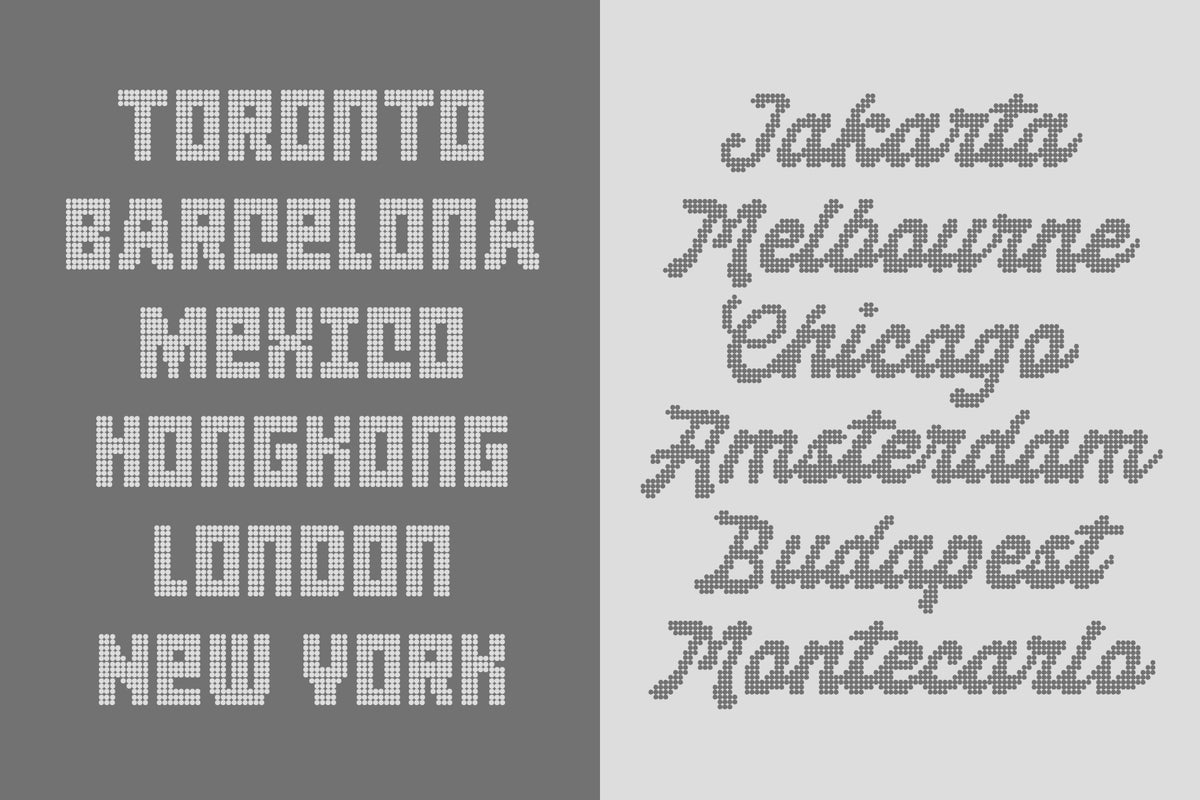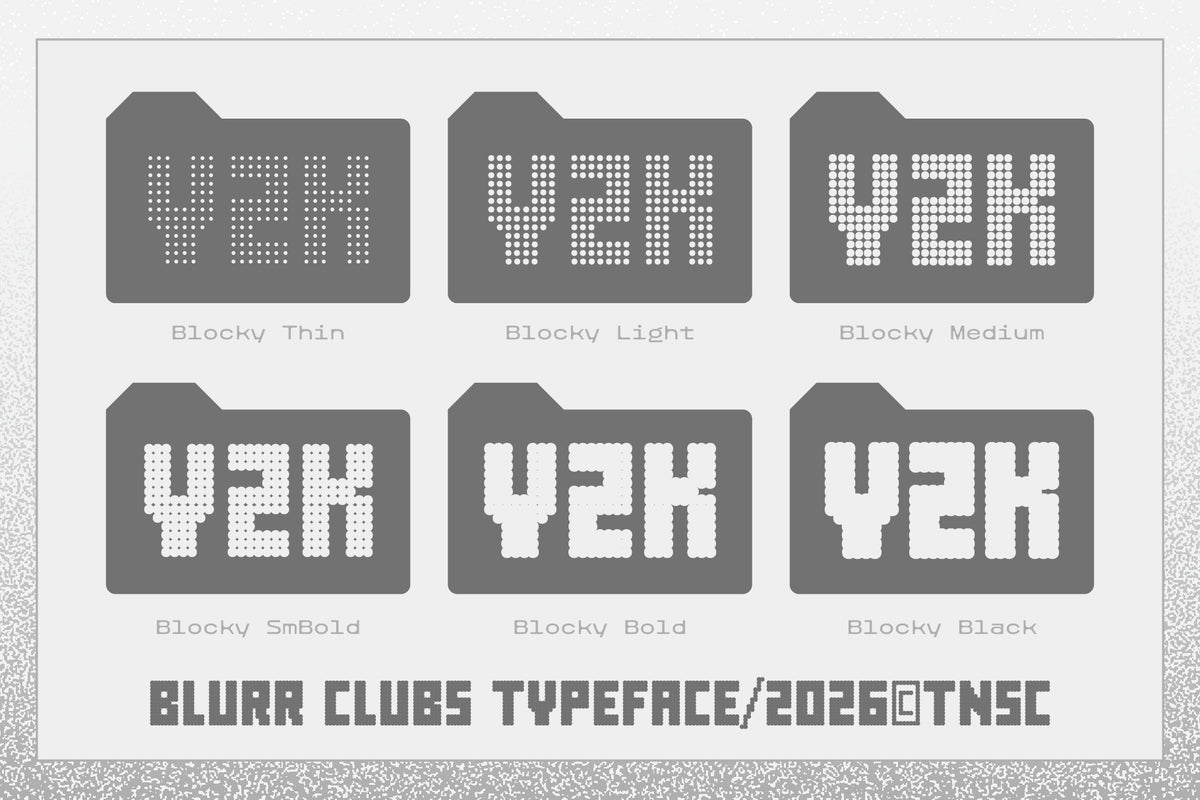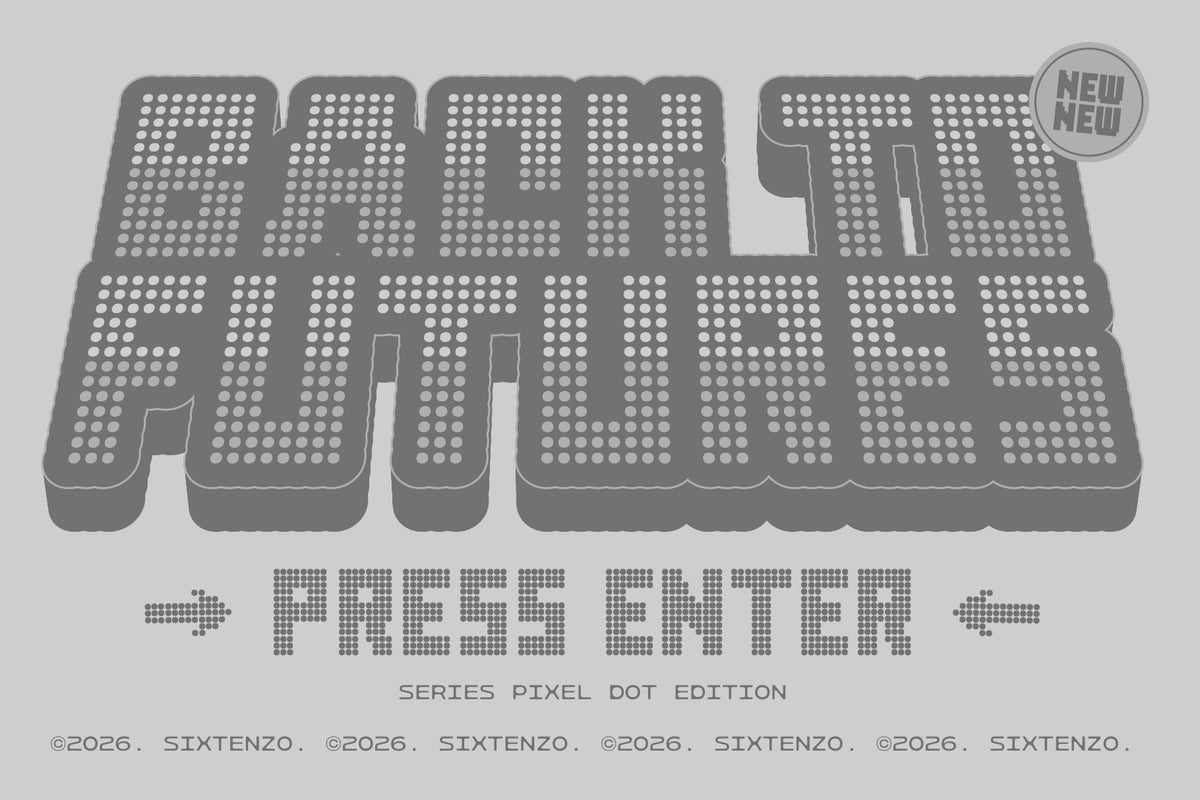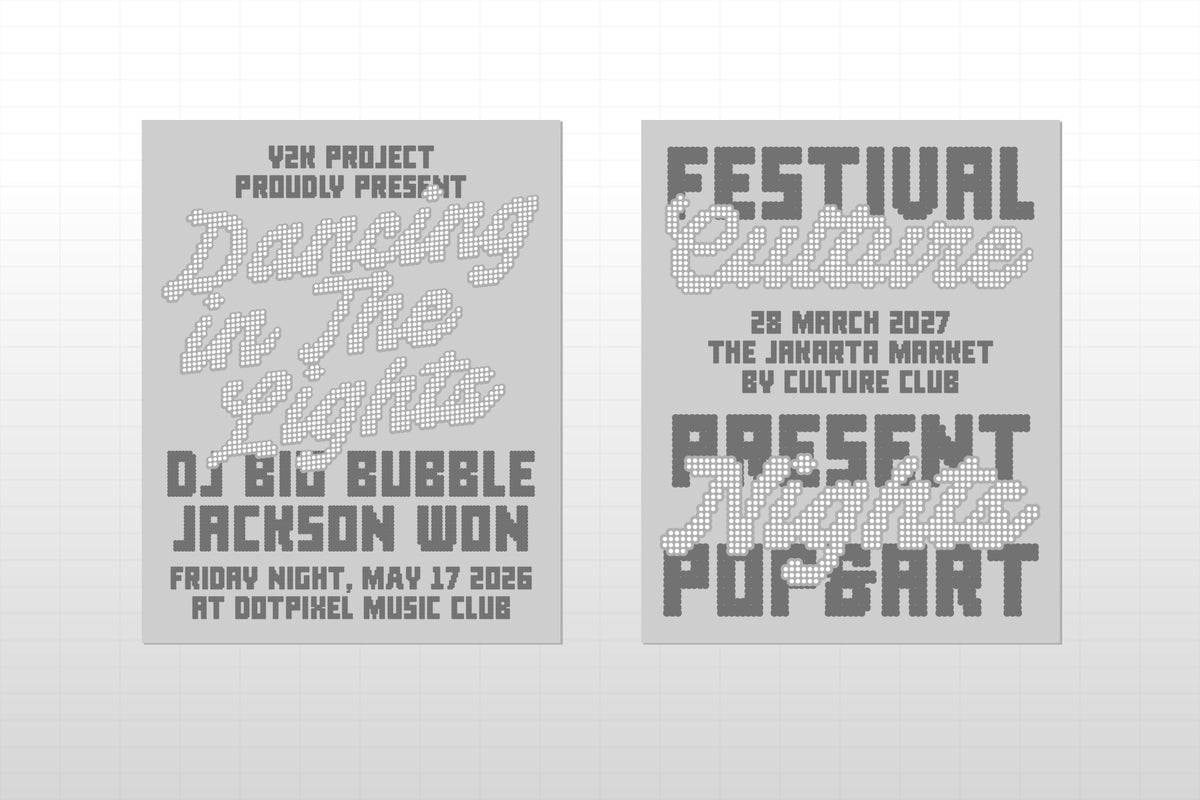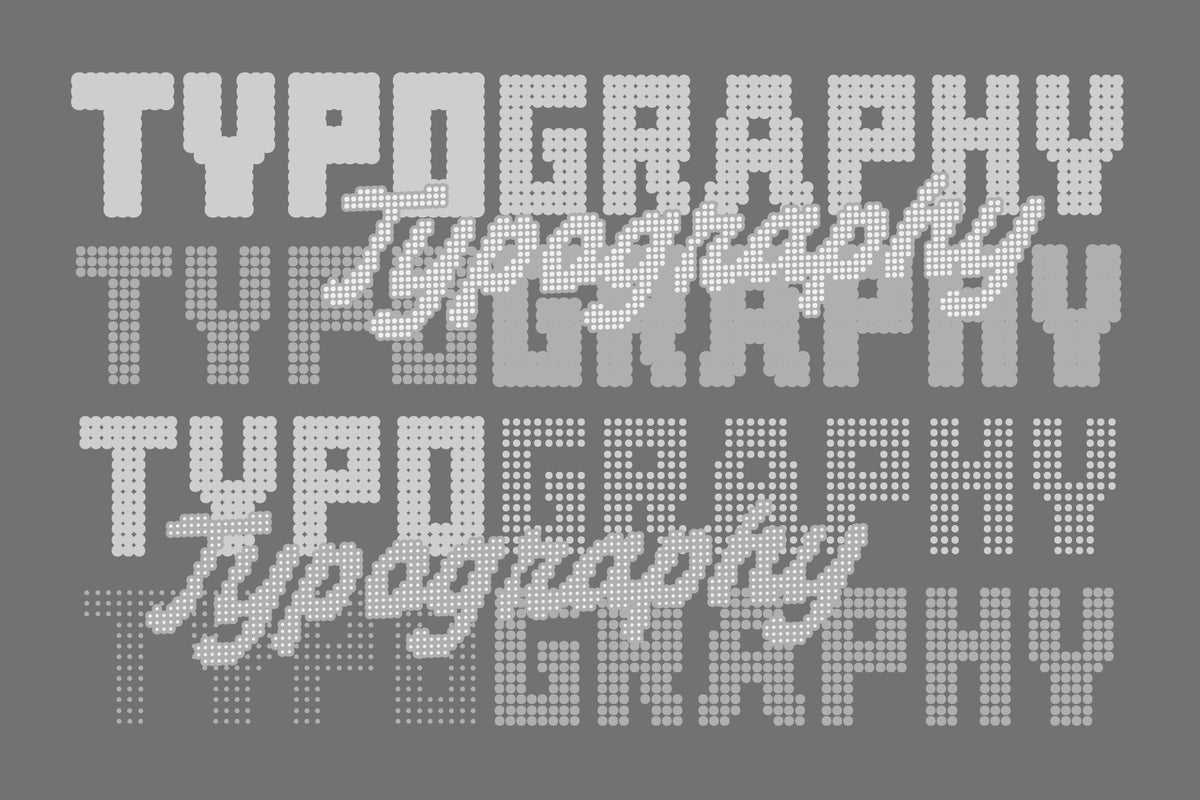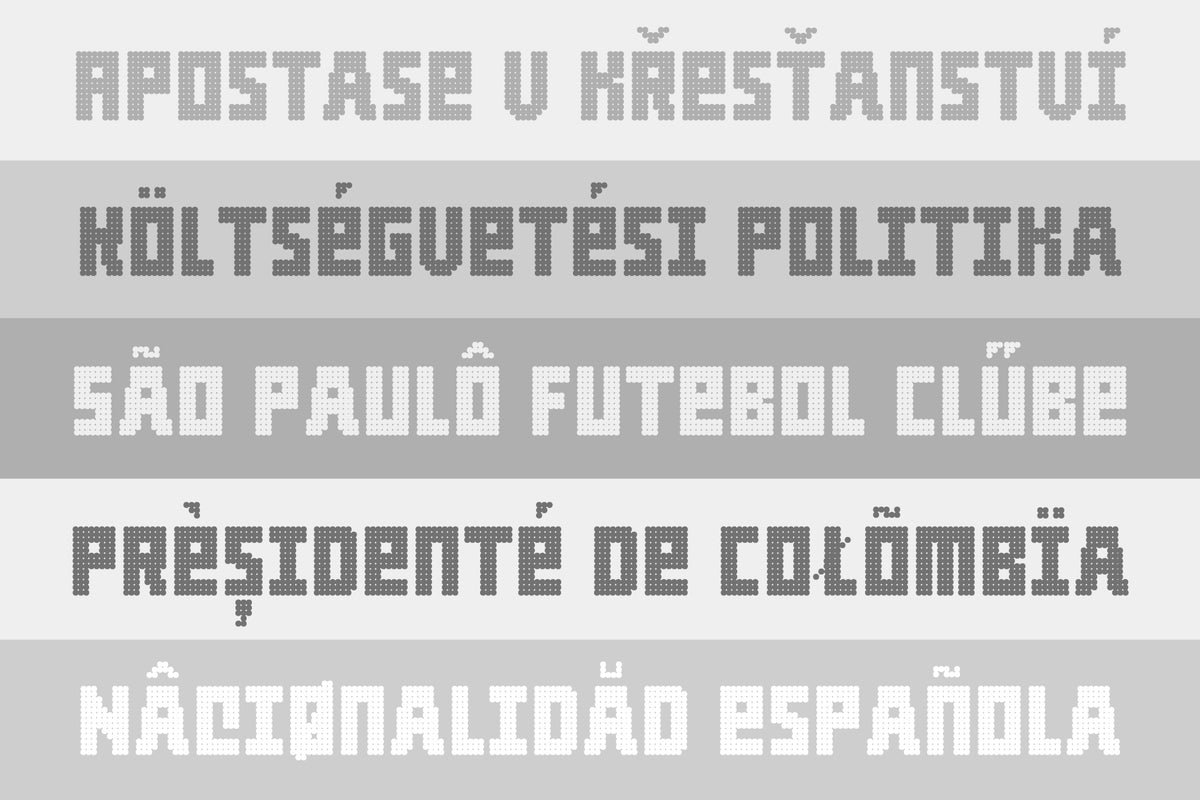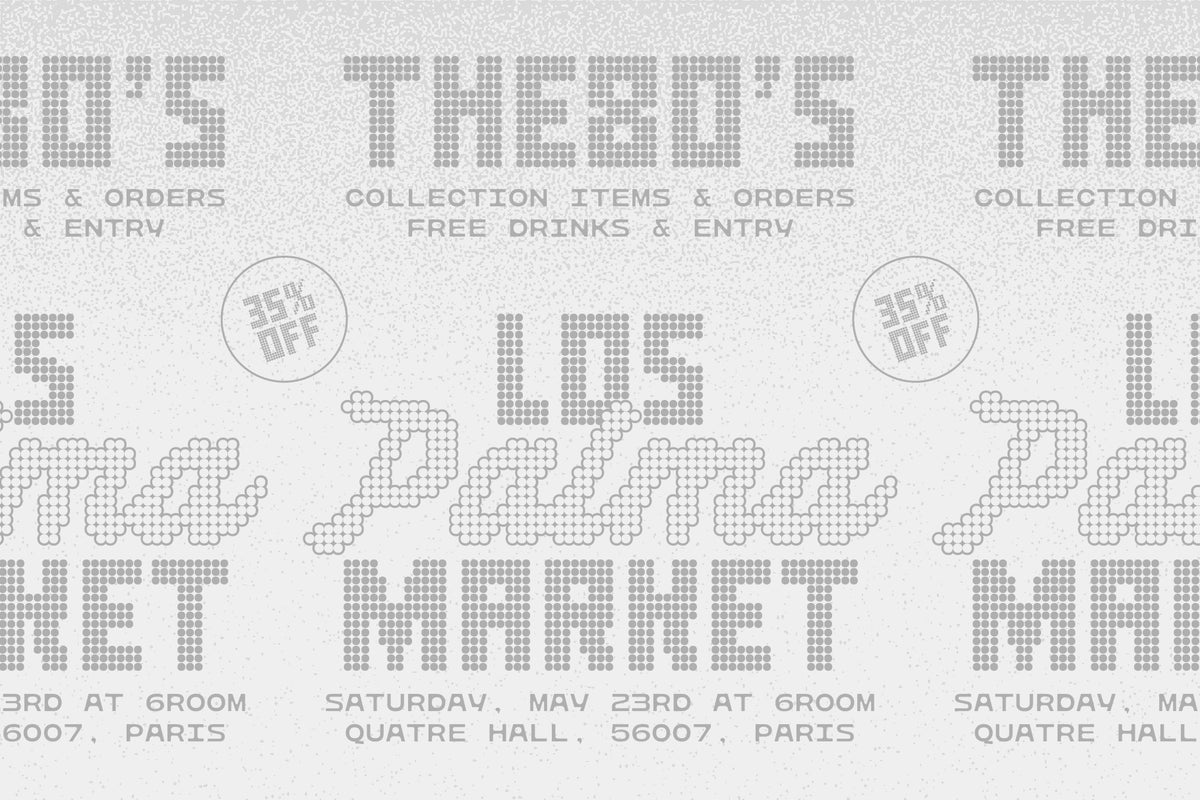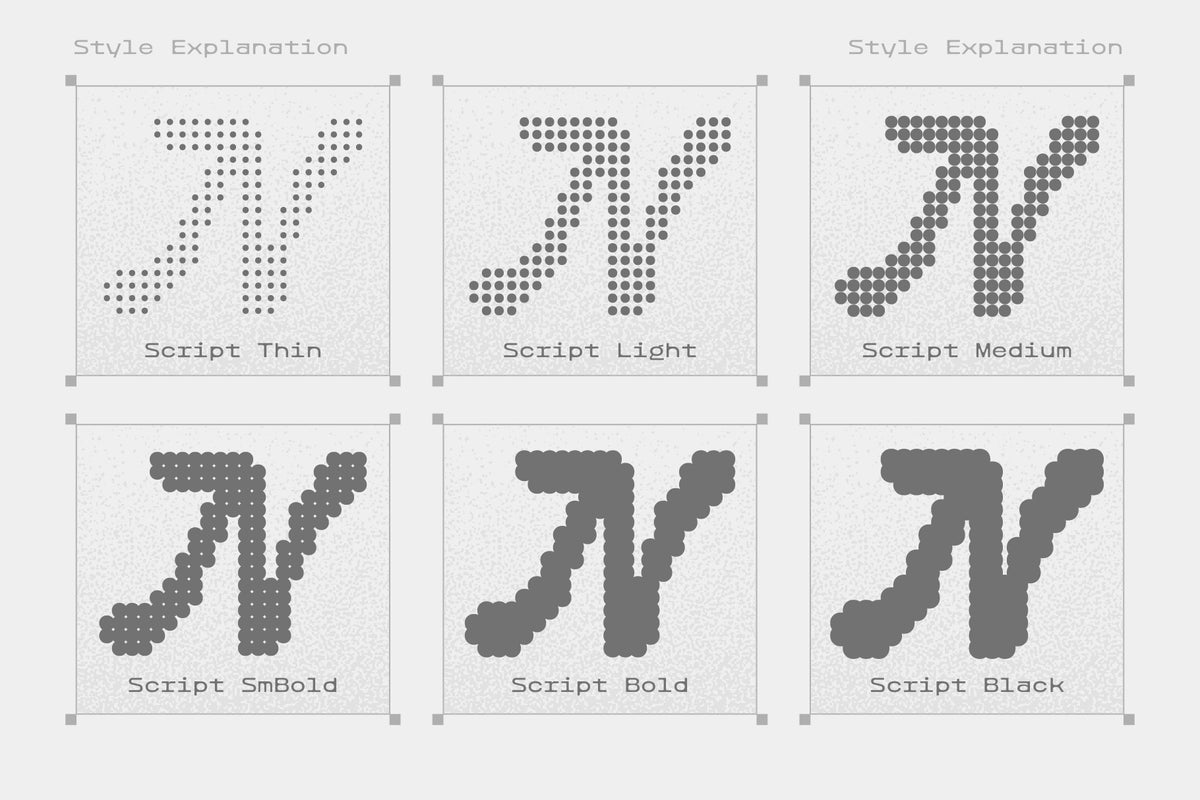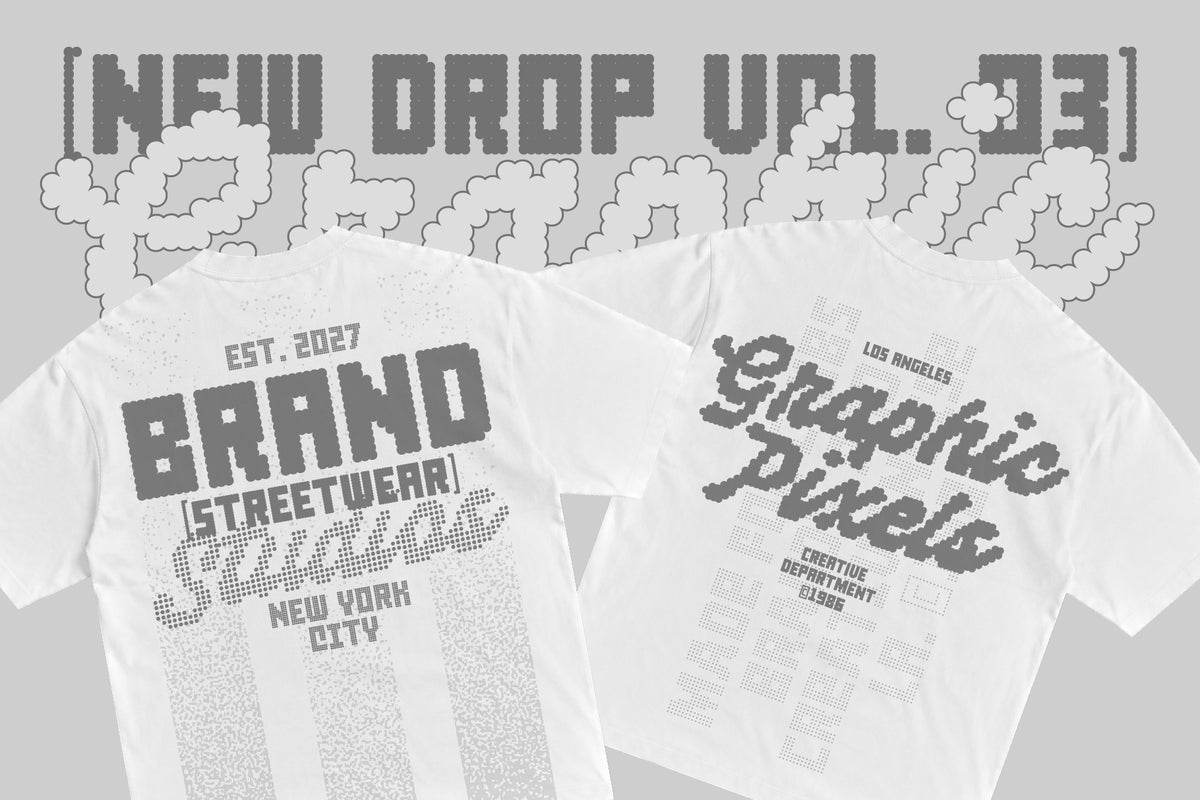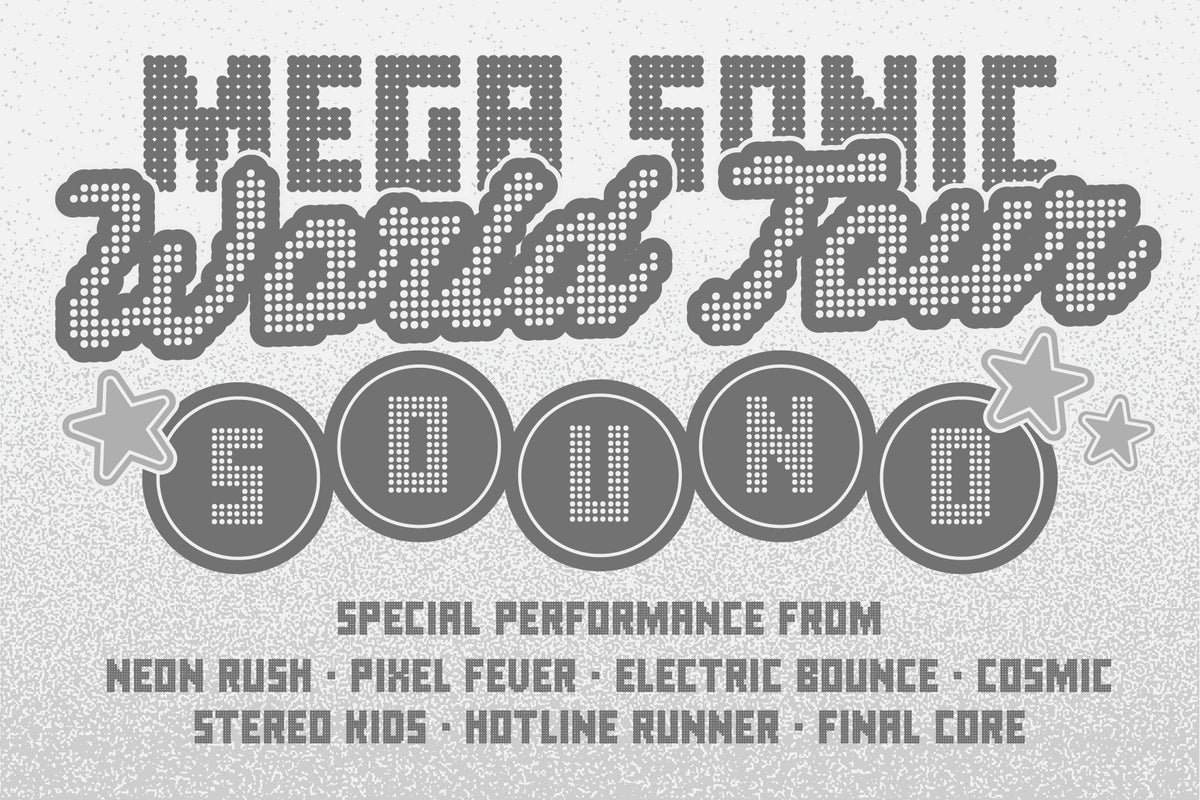
TNSC Blurr Clubs Typeface
Blurr Clubs is a pixel typeface duo that combines a bold blocky style with an expressive pixel script, bringing together retro digital aesthetics and playful contemporary energy. Inspired by early computer graphics, sportswear, club culture, arcade visuals, and pixel-based typography, it works especially well for posters, apparel, music graphics, branding, editorial layouts, merchandise, and experimental display design.
The family comes with 2 font styles and 12 total styles, giving you plenty of flexibility to create strong typographic contrast, layered compositions, and distinctive visual identities.
• 369 Glyphs
• 12 Styles (Blocky Thin, Blocky Light, Blocky Medium, Blocky SemiBold, Blocky Black, Script Thin, Script Light, Script Medium, Script SemiBold, Script Black)
• Variable technology
• Diacritics
• Alternates
• Symbols